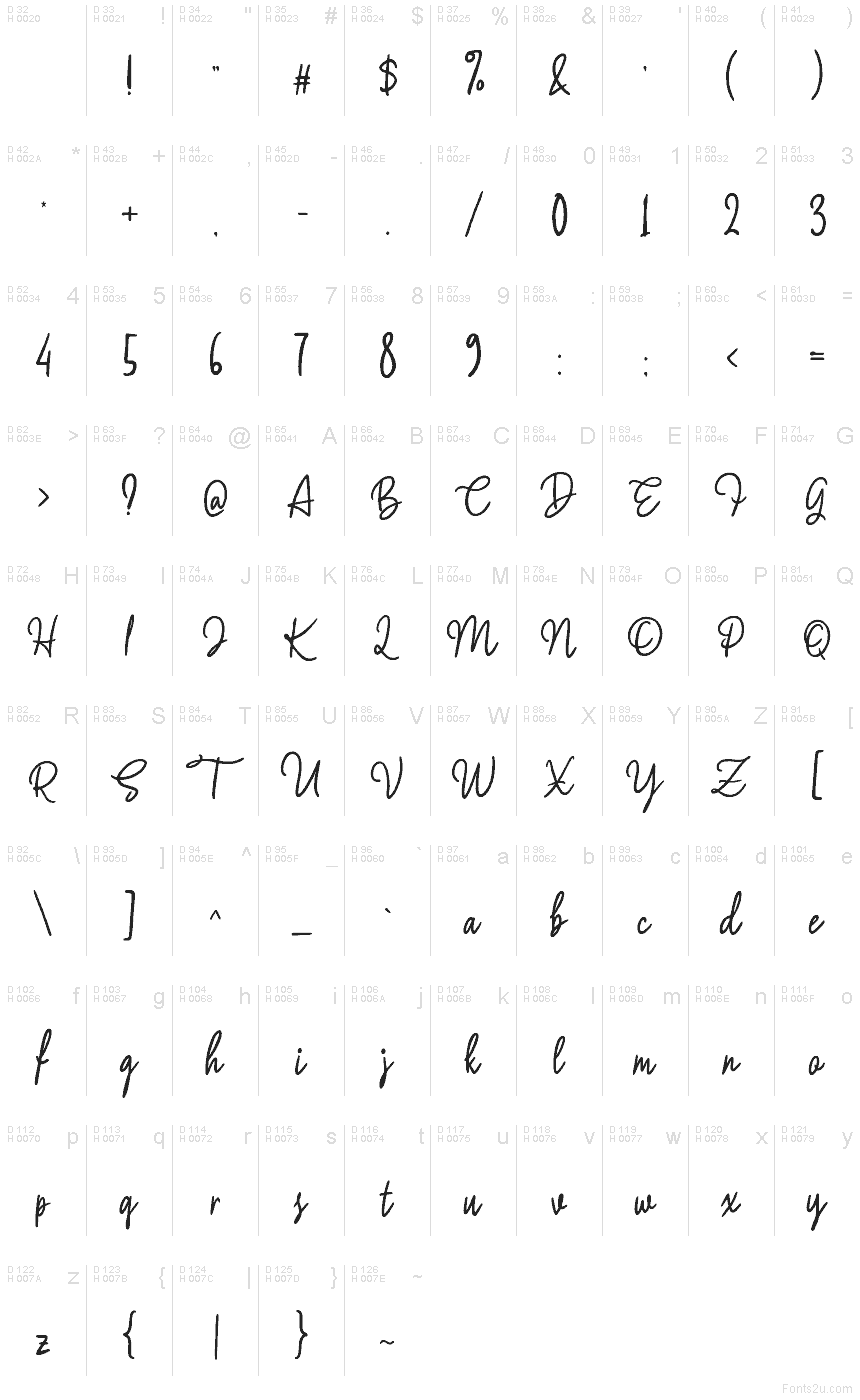
TheBillatesDemo
The Billates font by Letterhend Studio is a free handwritten font which describes itself as elegant, flowing, and sophisticated. A contemporary script face, its letterforms are expressive and graceful. It’s able to effectively convey these characteristics as body copy using smaller sized letters or with even more impact when typed standout elements in larger sizes.
Possible use cases include logos, t-shirts, apparel design, product packaging, social media graphics (IG/FB/TW banners), blogs/articles imagery creation (generic placeholder visuals) printed publications (magazines/newspapers). Cards and invitations can also greatly benefit from this typeface!